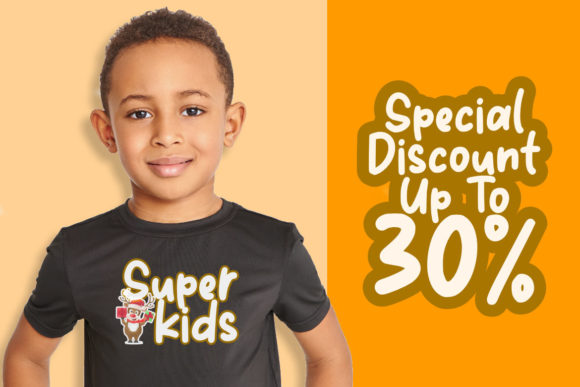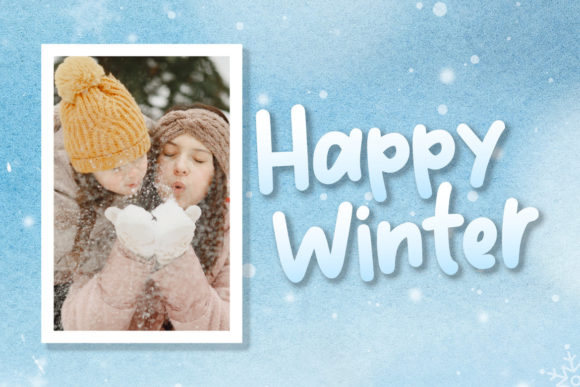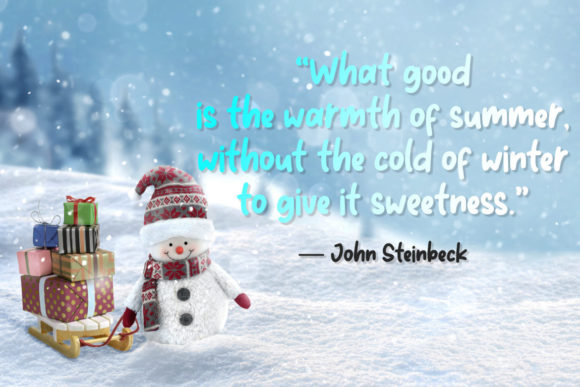
Introduction to Little Deer Font
As designers, we’ve all been there – staring at a blank page, searching for that perfect font to bring our creative project to life. The search can be daunting, but what if I told you that you’ve just stumbled upon a hidden gem that will make all your design dreams come true? Enter the enchanting Little Deer Font, a whimsical display font that’s sure to captivate your audience and leave a lasting impression.
With its adorable deer-themed characters, this font is perfect for adding a touch of playfulness and authenticity to your designs. Whether you’re creating beautiful stationary art, eye-catching social media posts, or cute greeting cards, the Little Deer Font is sure to be a valuable resource for any designer looking to add a little extra magic to their work.
Key Features of Little Deer Font
- Unique, hand-drawn design with a whimsical touch, perfect for creative projects and artistic expressions.
- High-quality font with a transparent background, ideal for use as a design resource in various digital applications.
- Designed to be highly versatile, suitable for use in a variety of creative projects, from logos and branding to typography and illustrations.
Honest Review: Little Deer Font
I recently stumbled upon the Little Deer Font, and I must say it’s been a great addition to my design arsenal. This font is perfect for those looking to add a touch of whimsy to their creative project.
- ✨ The high quality of the font ensures that it looks great even at larger font sizes.
- ⚠️ The font may not be suitable for formal or professional projects due to its playful nature.
Overall, I’m impressed with the Little Deer Font. It’s a great option for designers looking to add a touch of personality to their work. With its high quality and transparent background, it’s a versatile design resource that can be used in a variety of creative projects.
Tips for Getting the Most Out of Little Deer Font
Use the Little Deer Font on a transparent background to create a clean and modern design. Experiment with different font sizes and styles to add depth and visual interest to your creative project. You can also use the font in combination with other design resources to create a high-quality and unique design.
The Little Deer Font is perfect for use in invitations, greeting cards, and other paper crafts. It’s also great for use in digital designs, such as social media graphics and blog posts. You can also use the font in educational materials, such as worksheets and presentations, to add a touch of whimsy and fun.